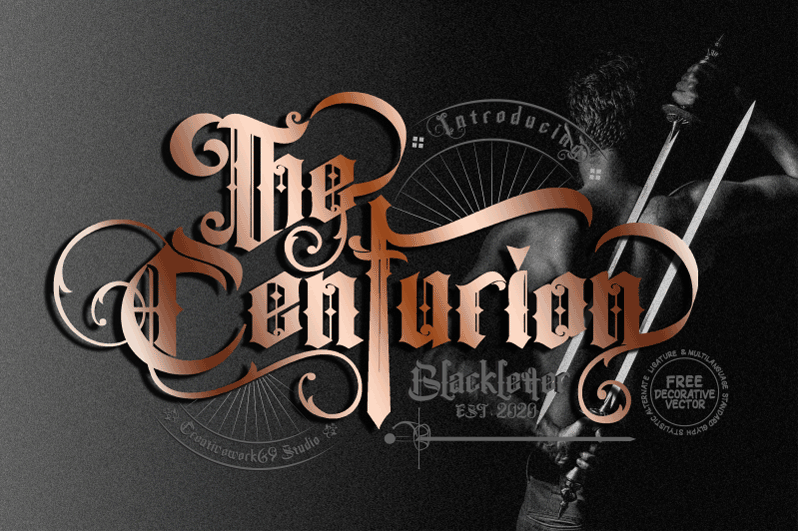
Preview and download The Centurion Font. Created by Daddi Daryawan in Gothic Medieval styles with Free for personal use license.
The Centurion is a blackletter gothic, classic and artistic style font, perfect to be applied to your design projects. Add this beautiful display font to each of your creative ideas and notice how it makes them stand out! ENGLISH: Be very careful and take the time to read any and all documentation before deciding to use a font commercially. Ignorance is not an excuse for breaking the law. By installing or using this font, you are hereby agree to this Product Usage Agreement: 1. This font is ONLY FOR PERSONAL USE 2. NO COMMERCIAL USE ALLOWED 3. You are REQUIRES A LICENSE for PROMOTIONAL or COMMERCIAL USE 4. CONTACT ME before any Promotional or Commercial Use COMMERCIAL USE : https://www.creativefabrica.com/product/the-centurion/ref/181749/ EMAIL SUPPORT: creativework69@yahoo.com ------------------------------------------------ INDONESIA: Berhati-hatilah dan luangkan waktu untuk membaca Syarat & Ketentuan dibawah, sebelum memutuskan untuk menggunakan font secara komersial. Ketidaktahuan bukanlah alasan untuk suatu pelanggaran hukum. Dengan meng-install font ini, anda dianggap mengerti dan menyetujui semua syarat dan ketentuan penggunaan font dibawah ini: More... |